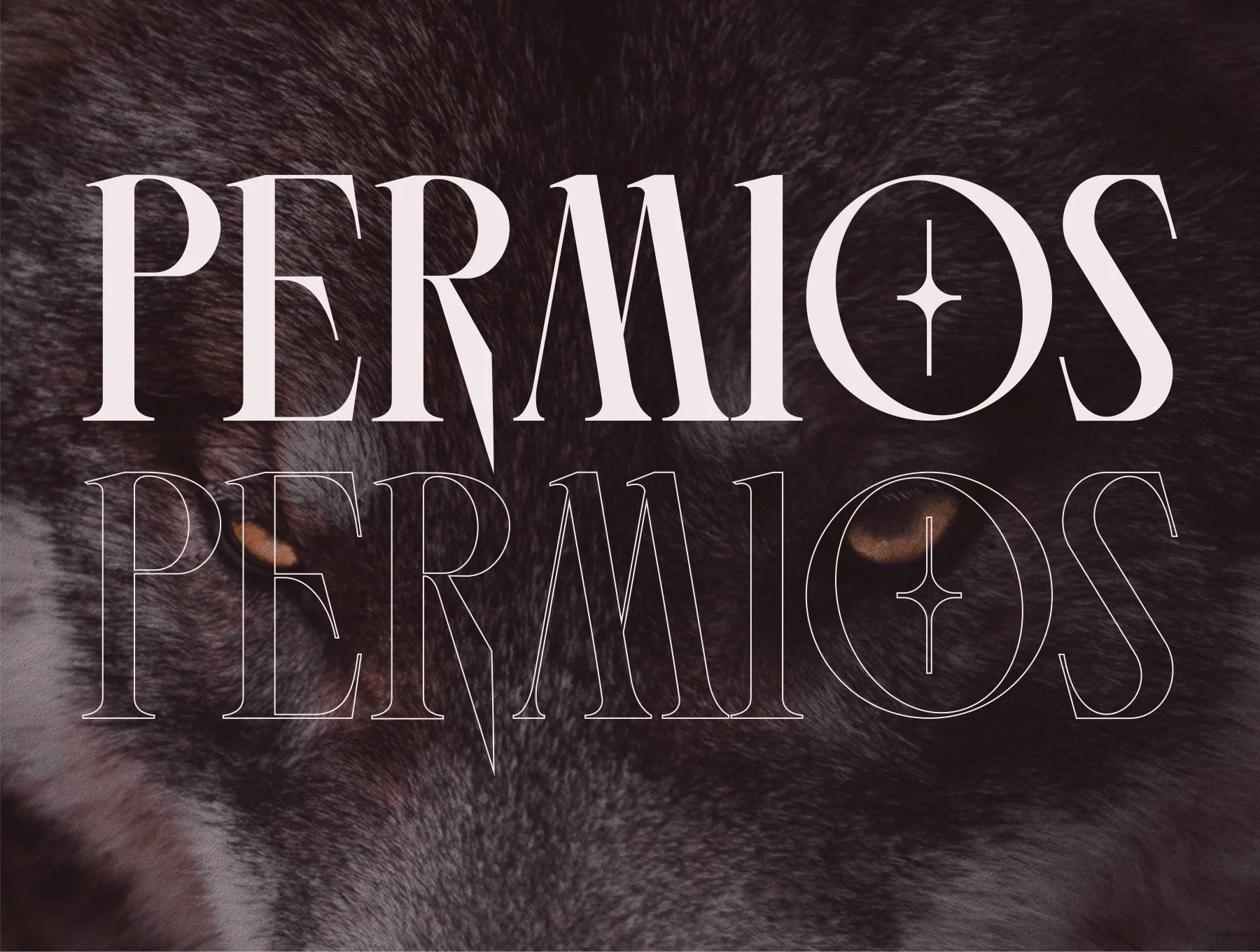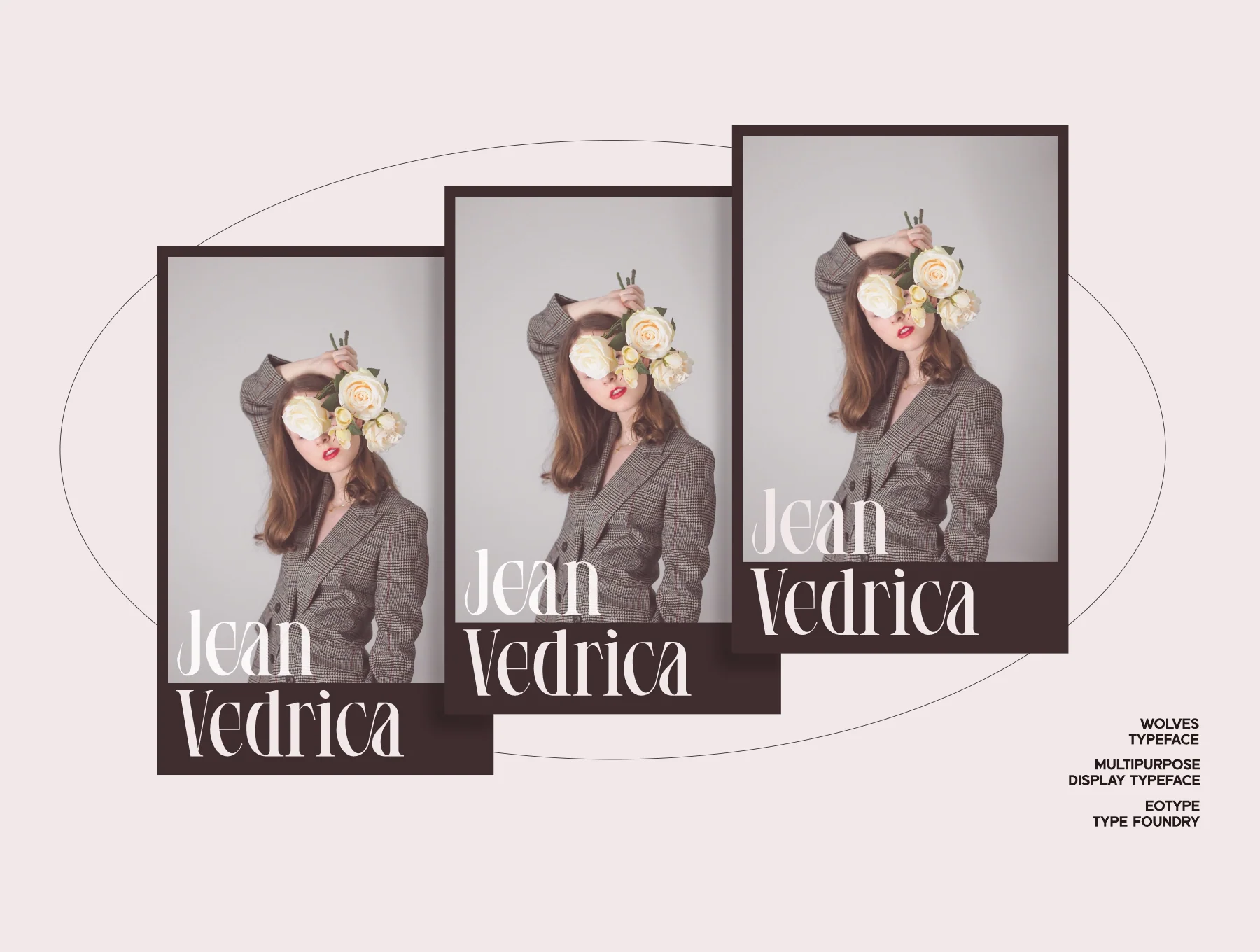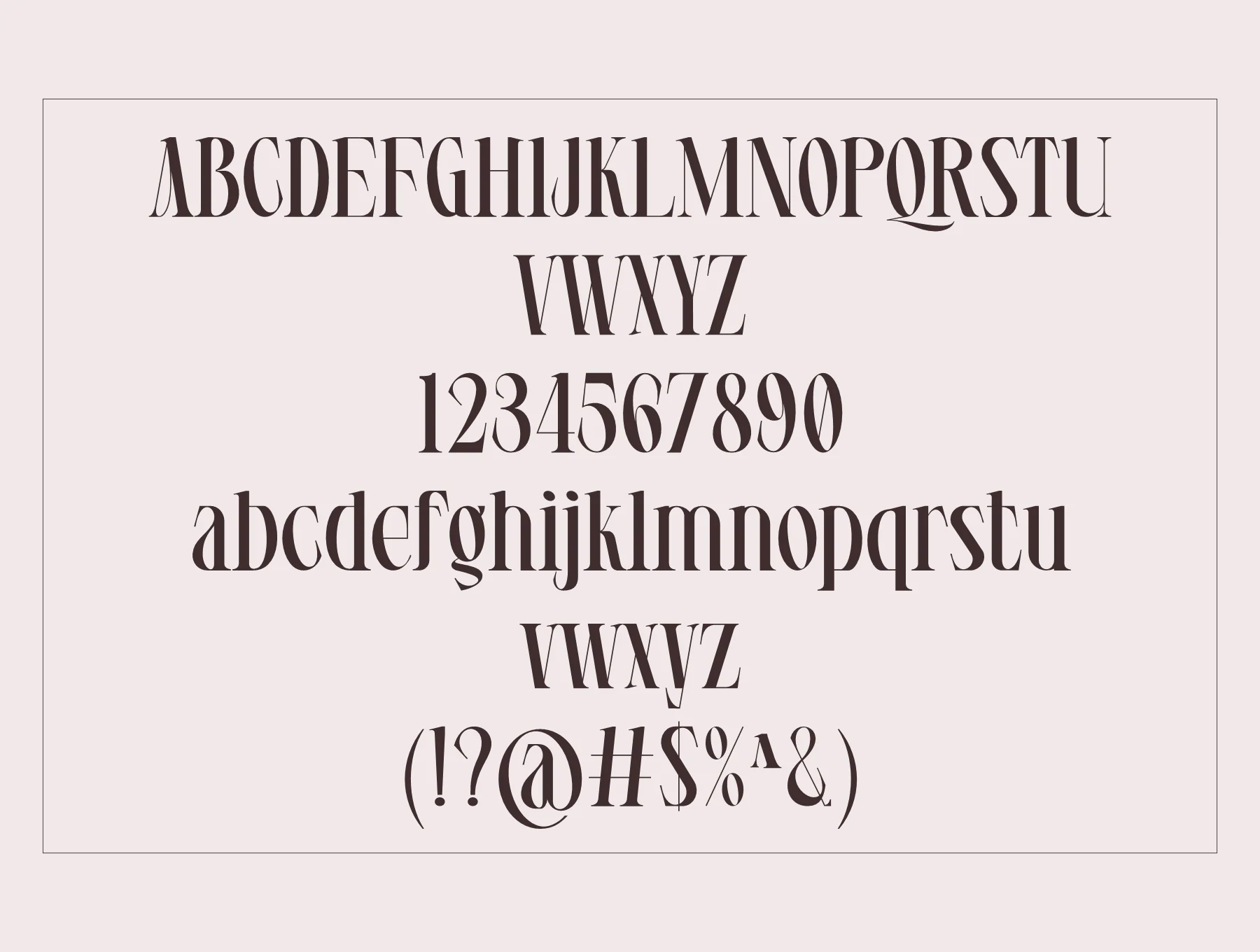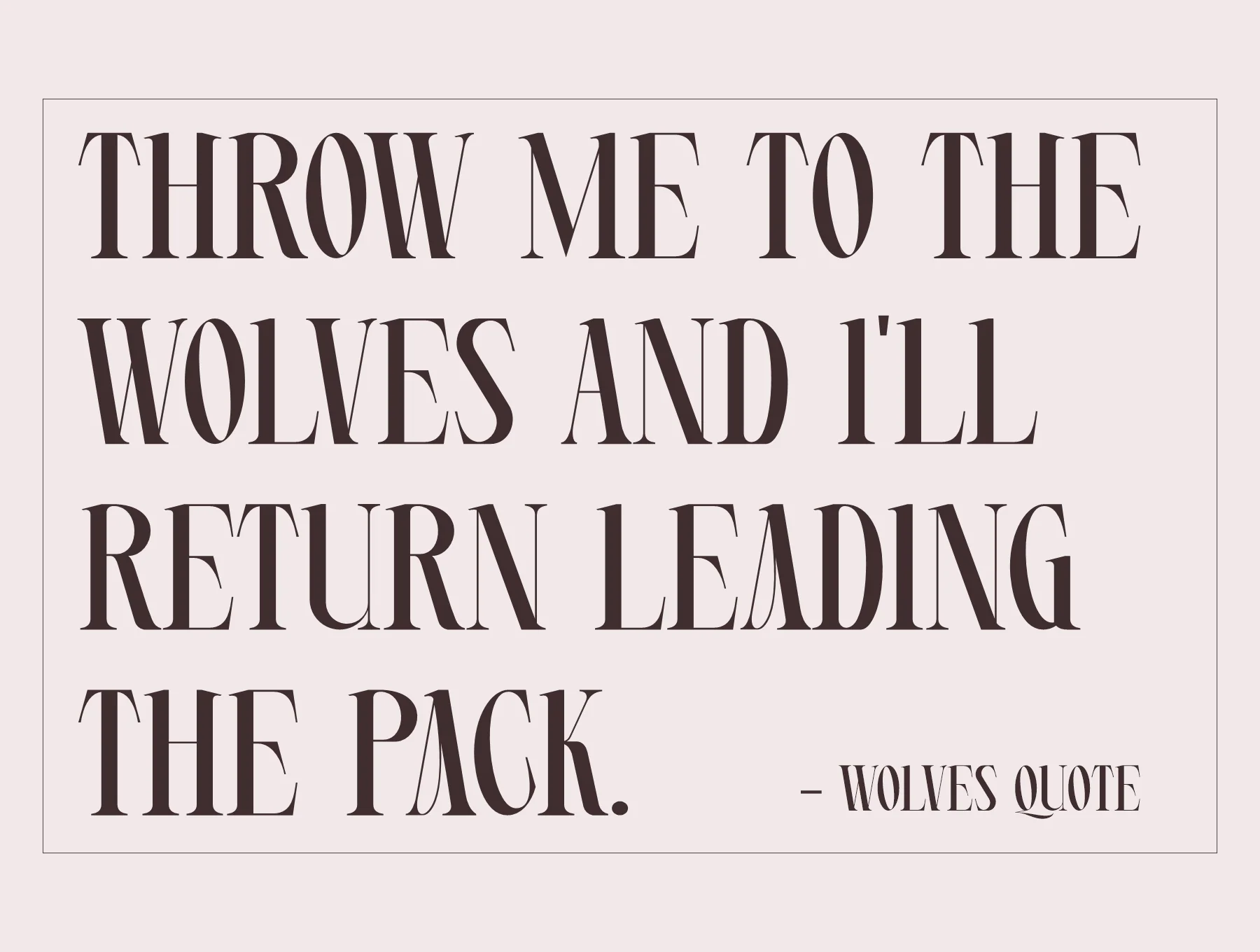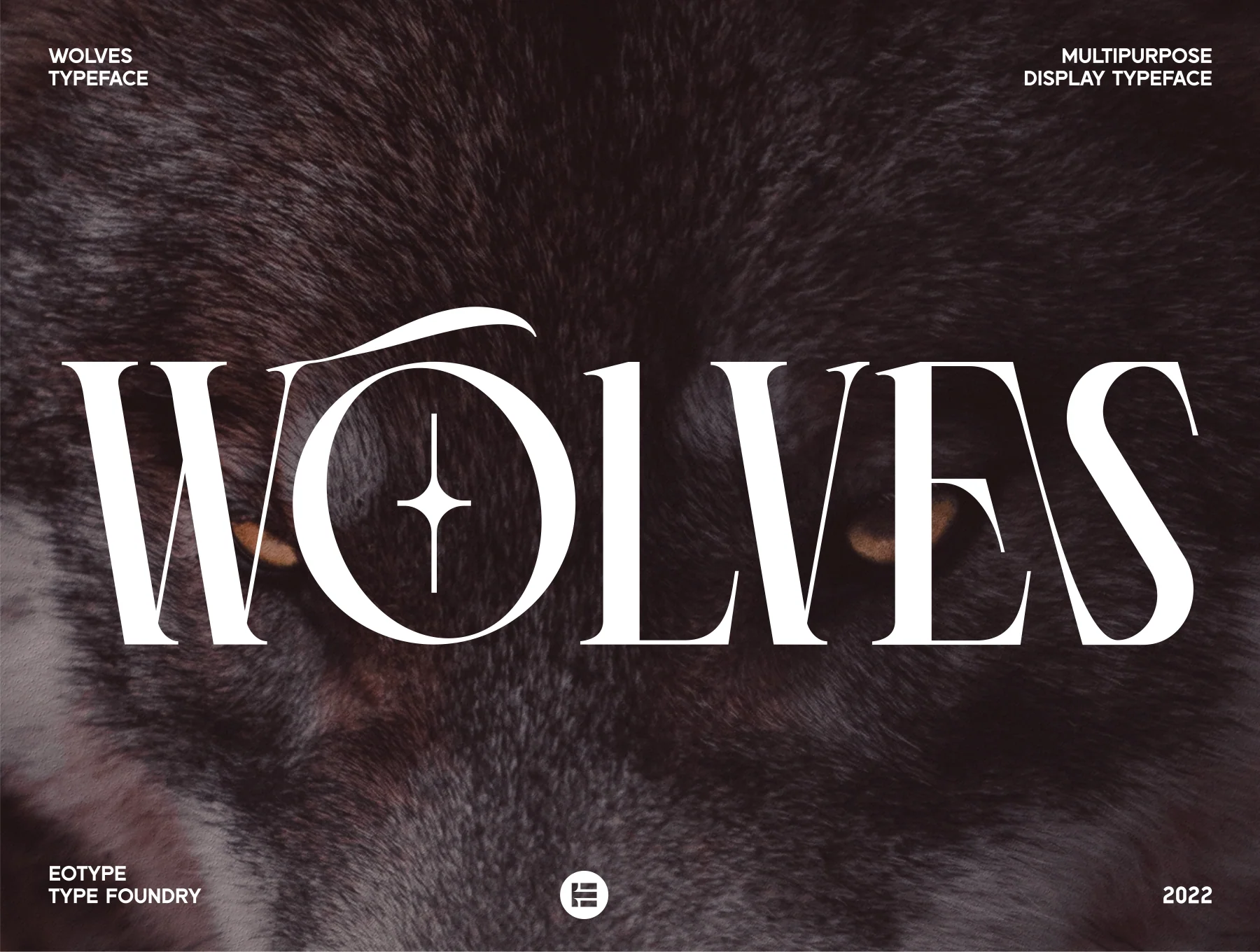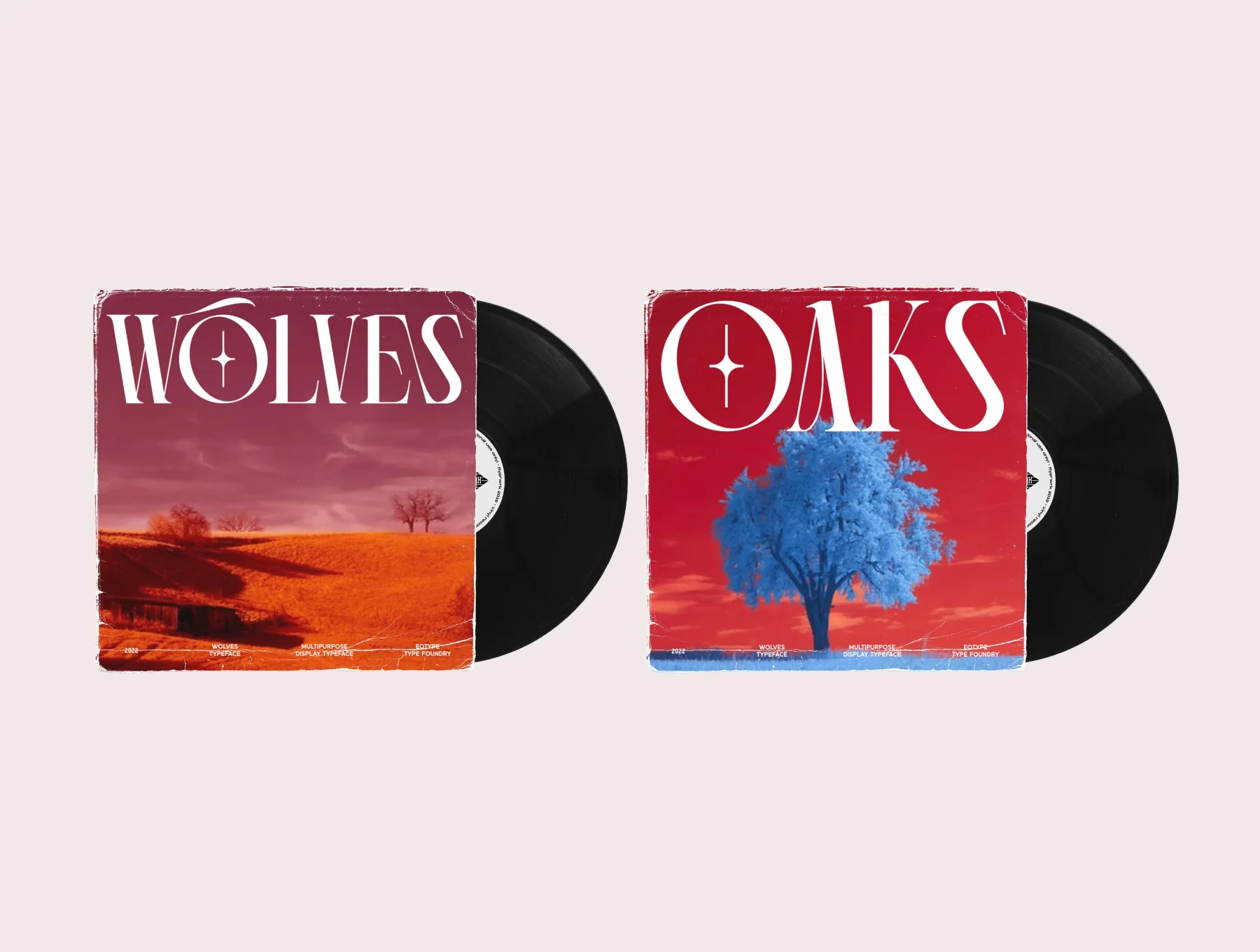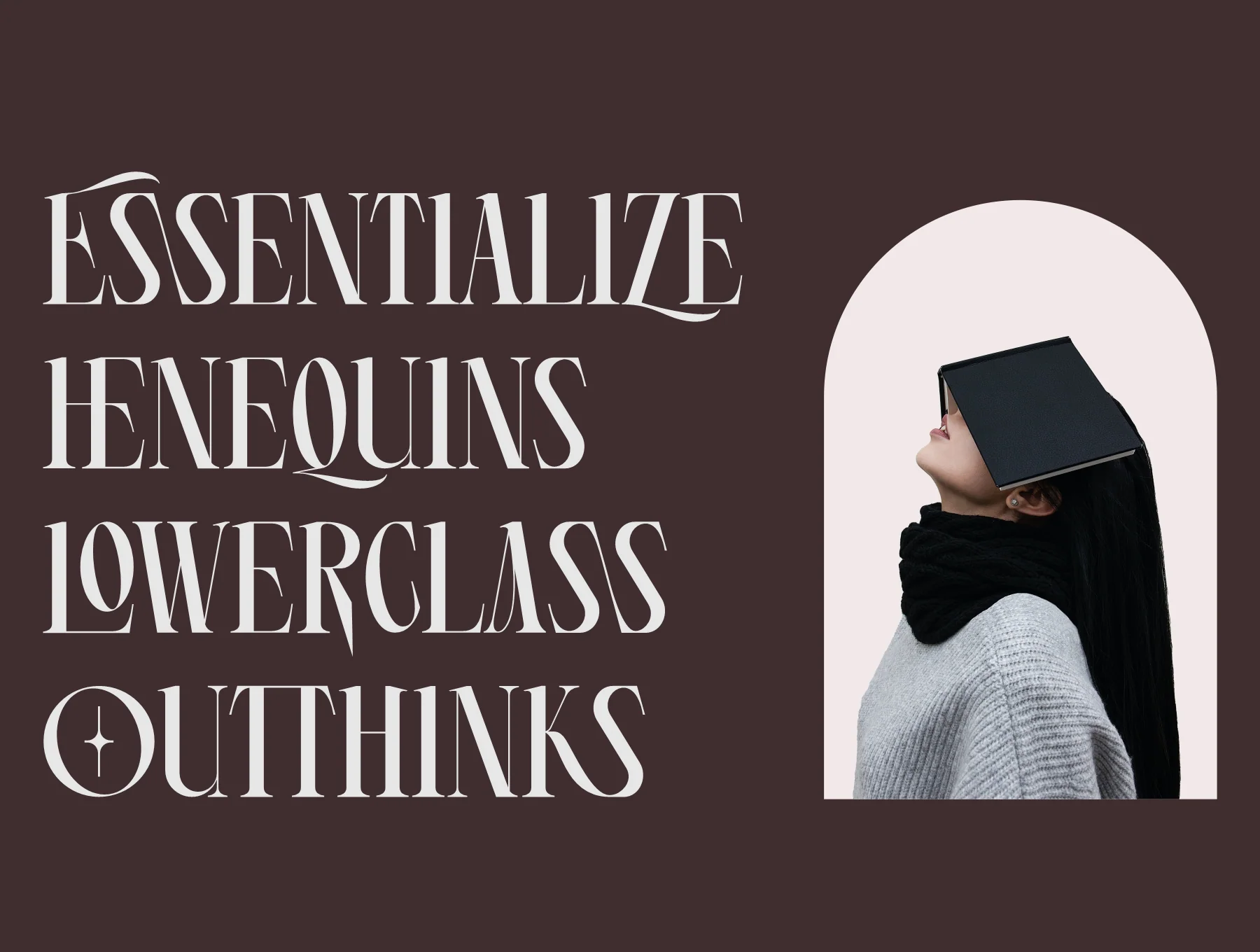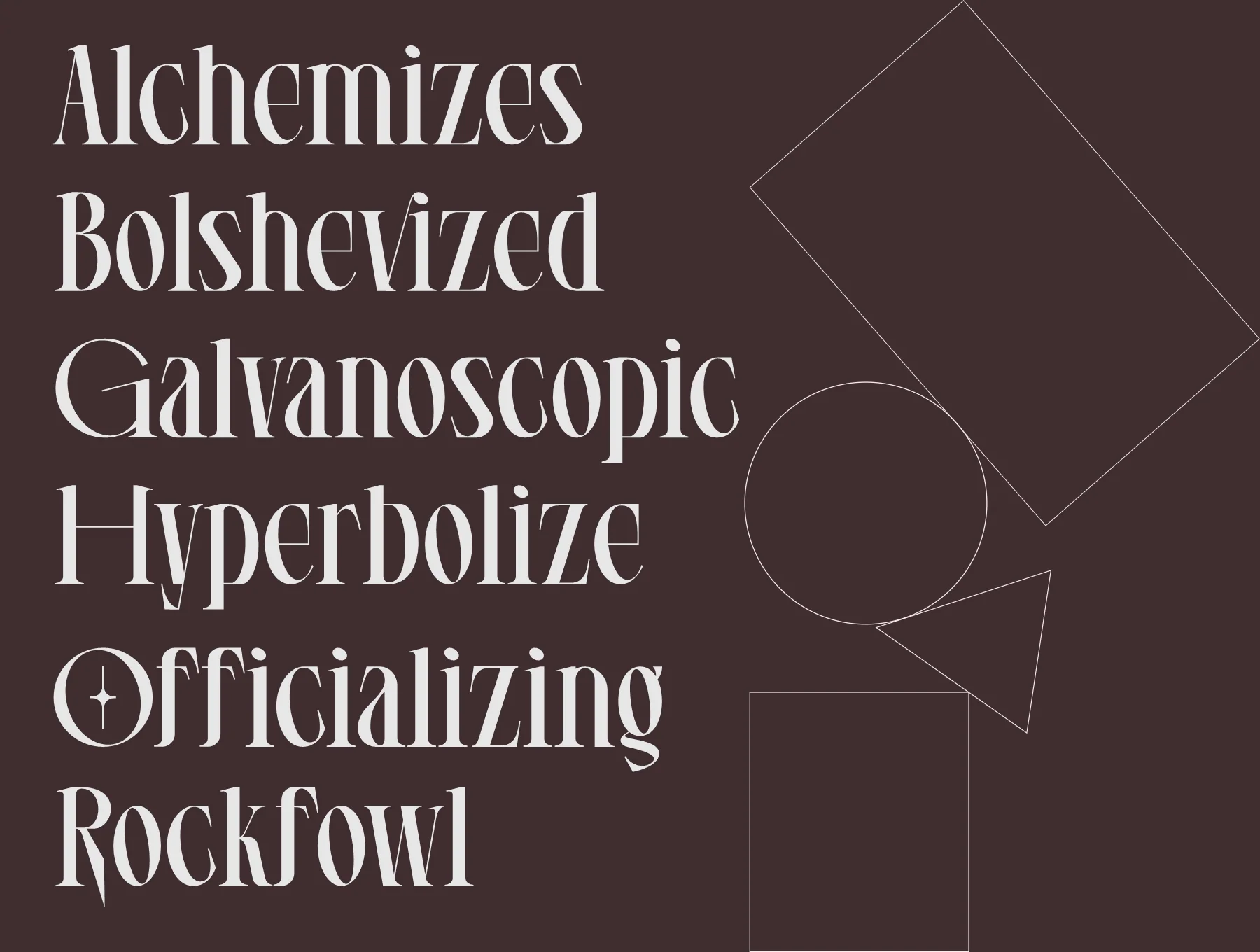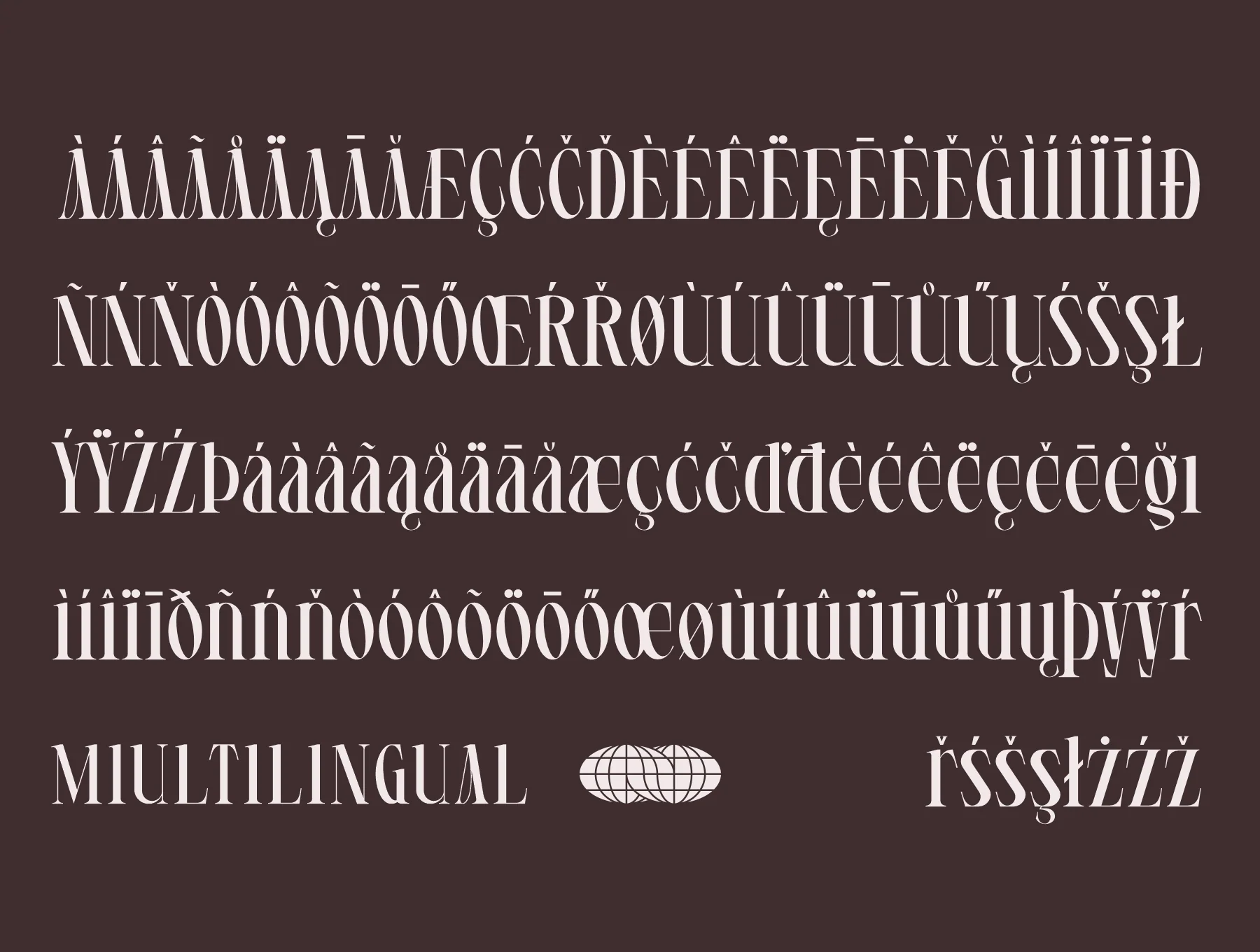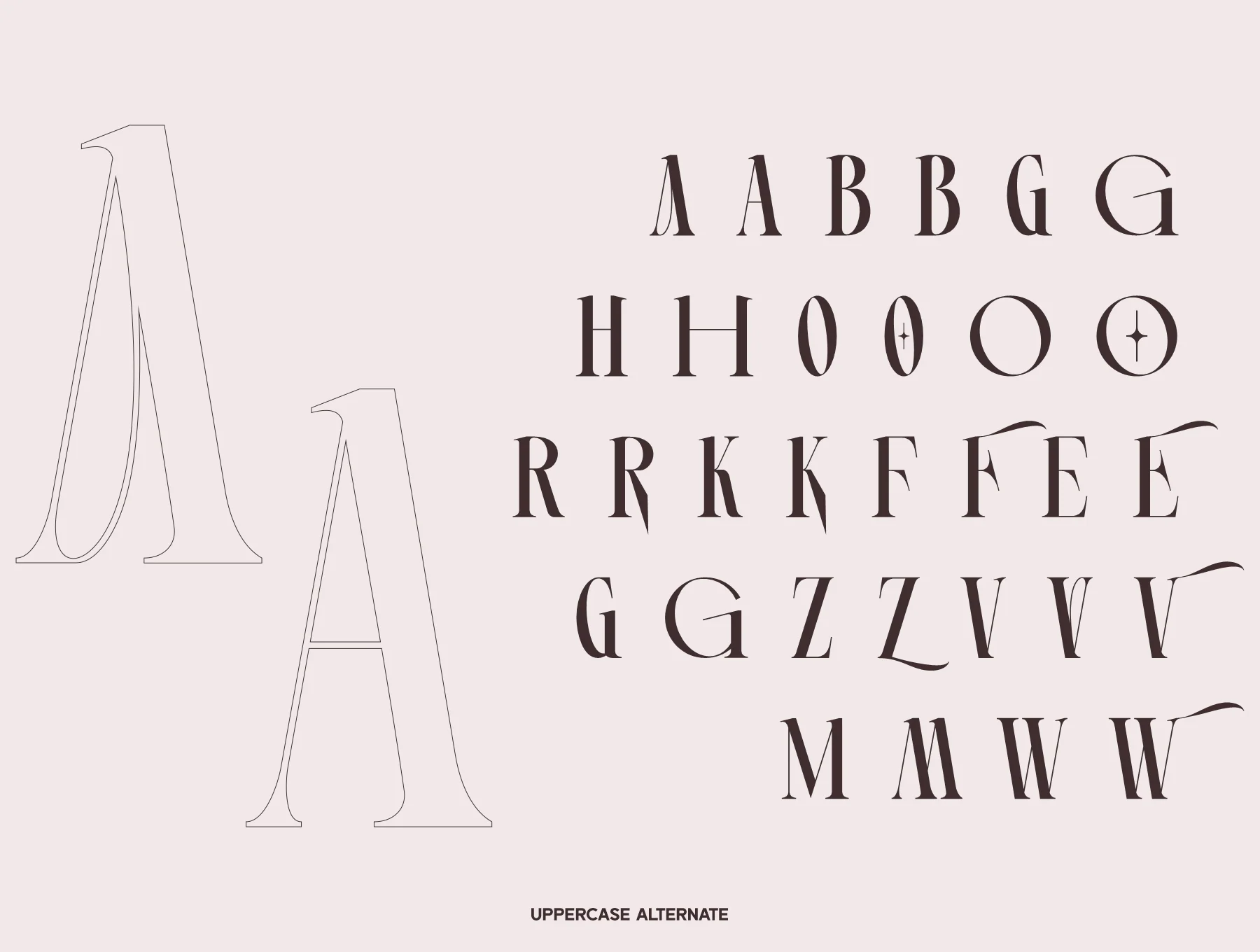
Wolves Dislay Typeface
Wolves narrow serif typeface
Wolves is a condensed serif typeface with a refined, stylish look. Designed as a distinctive professional font for many uses, it suits modern, elegant projects including branding, posters, logos, magazine covers, product labels, apparel, and more. It includes ligatures and alternate styles for a polished design experience.